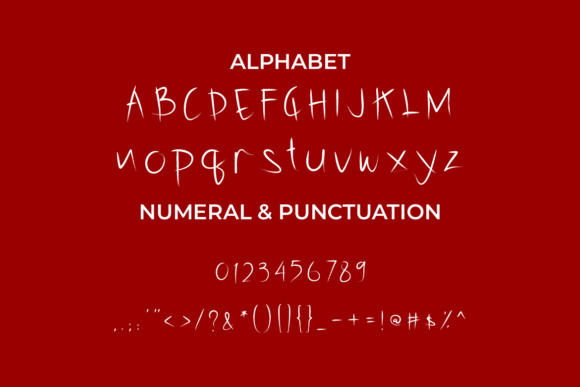
Introduction to Kirangsae Font
Kirangsae is a fun and quirky handwritten display font.
Add it confidently to your projects and you will love the results .
Key Features of Kirangsae Font
Why Choose Kirangsae Font?
Kirangsae Font offers exceptional quality and versatility, making it a valuable addition to your design toolkit. Whether you’re creating for personal projects or commercial use, Kirangsae Font delivers professional results.